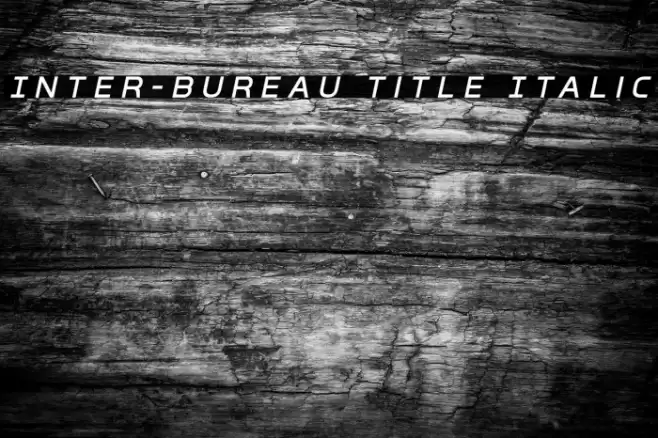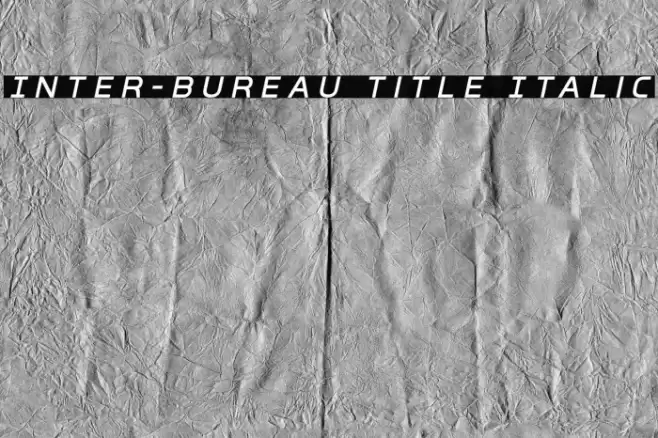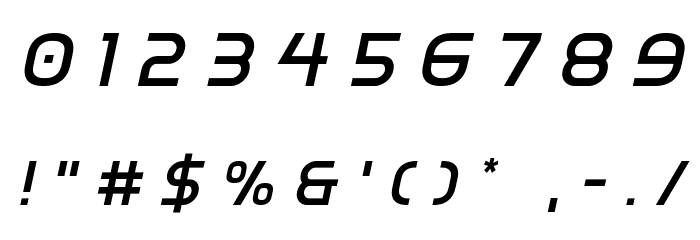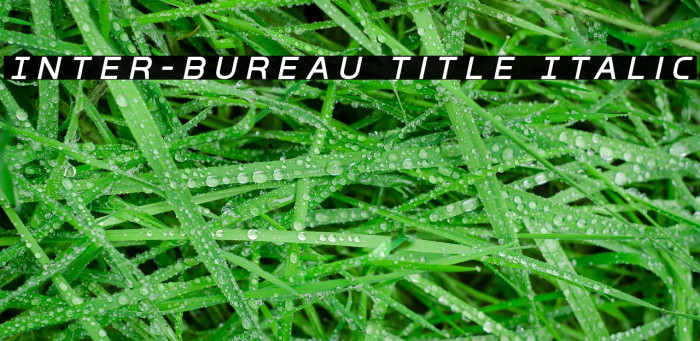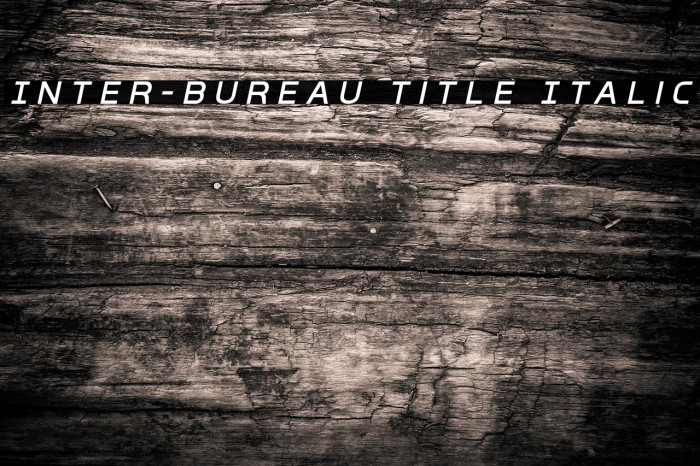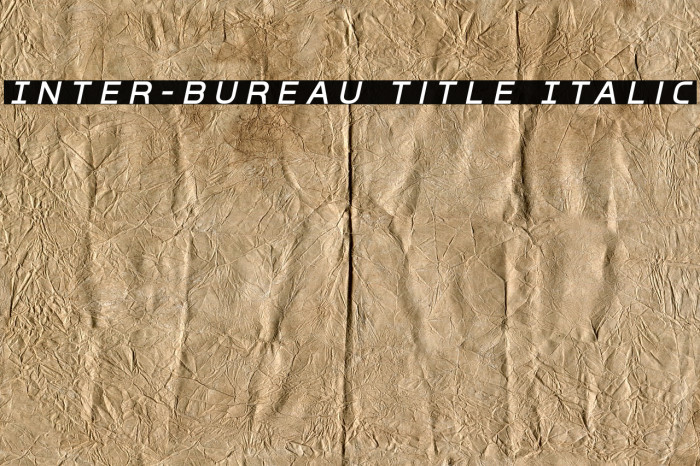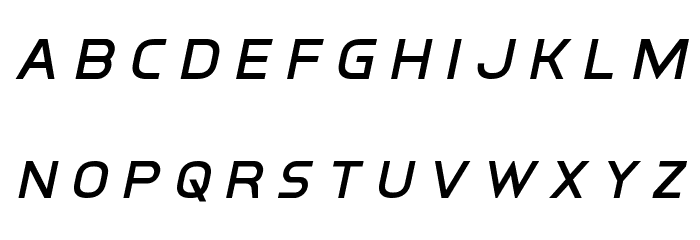
Inter-Bureau Title Italic Font
Inter-Bureau Title Italic Description
This font exhibits a modern and sleek design with a distinct italic style, characterized by its slanted and streamlined appearance. The characters are uniformly spaced with a slight forward tilt, giving a sense of motion and dynamism. The strokes are consistent in thickness, providing a clean and professional look. The font's geometric shapes and sharp angles contribute to its contemporary feel, making it suitable for a variety of digital and print applications. The numerals and special characters maintain the same stylistic approach, ensuring uniformity across all text elements.
A modern, italic font with a sleek and dynamic appearance from Uncategorized fonts.
- Proposed Projects: Ideal for tech branding, modern advertising, digital interfaces, and editorial design.
- Use Case: Headlines, Logos, Digital interfaces